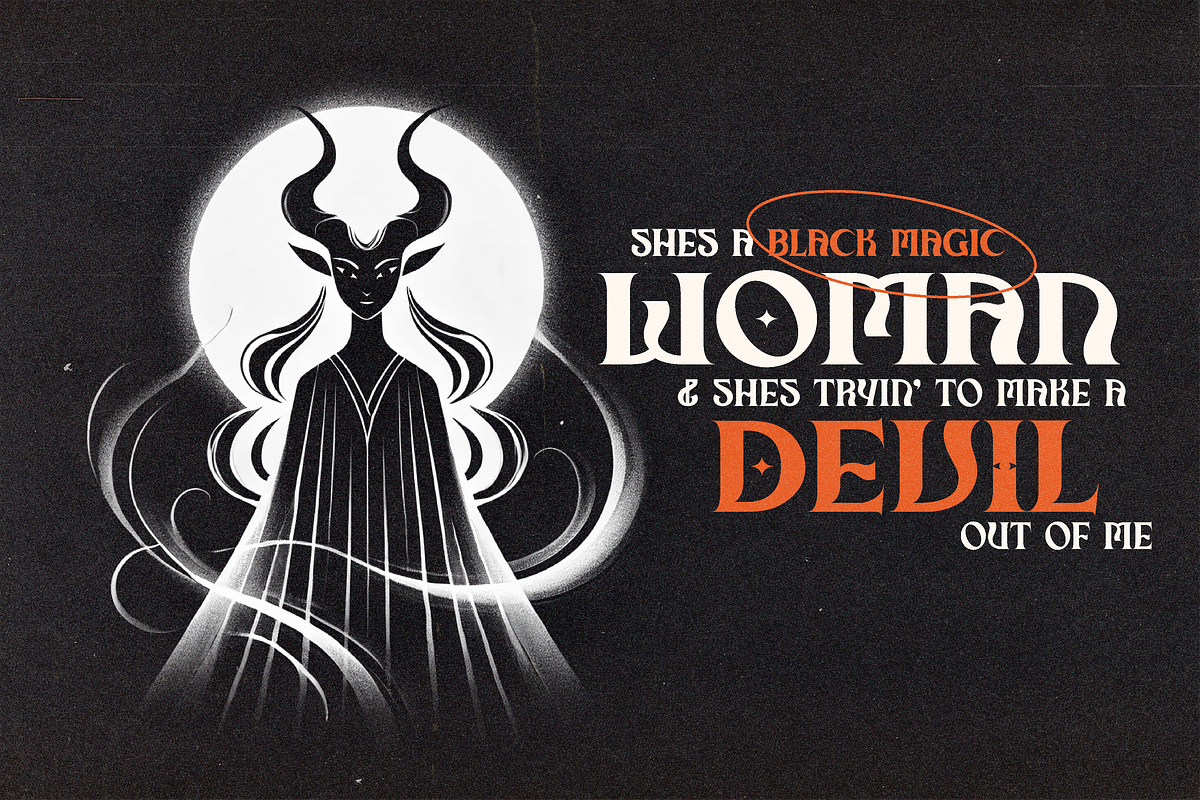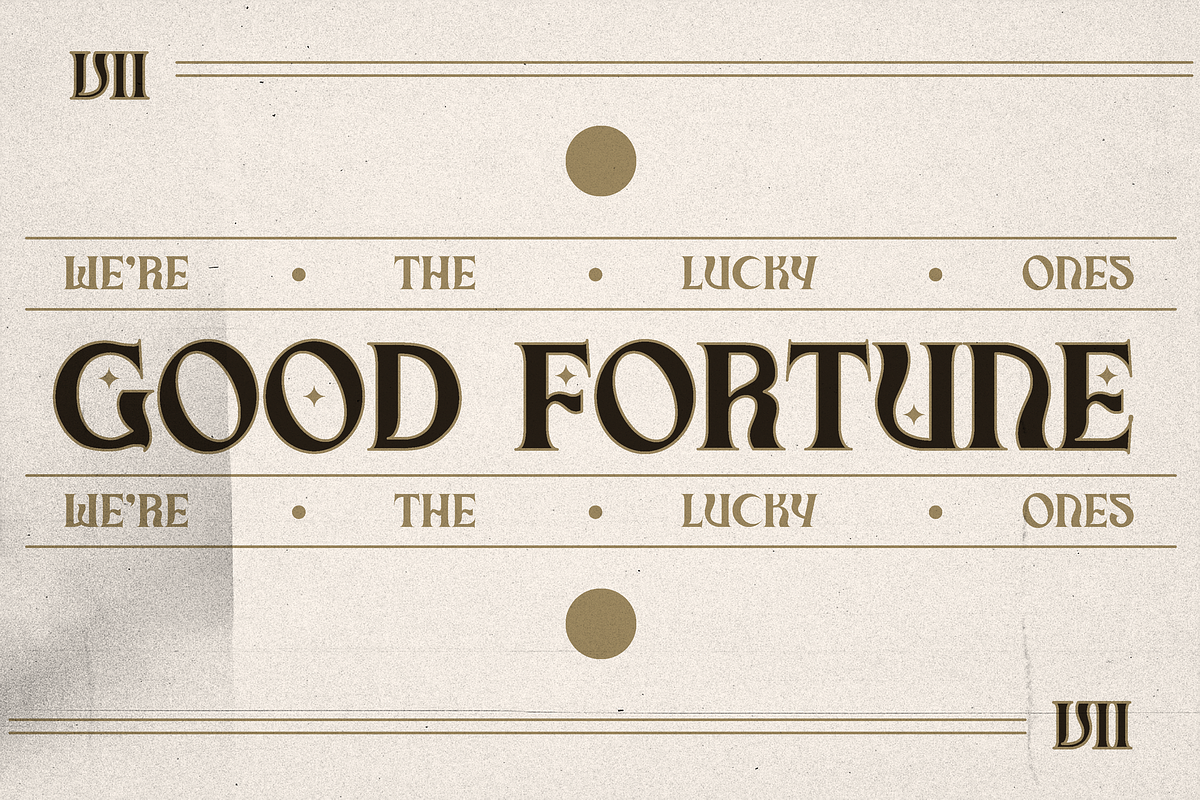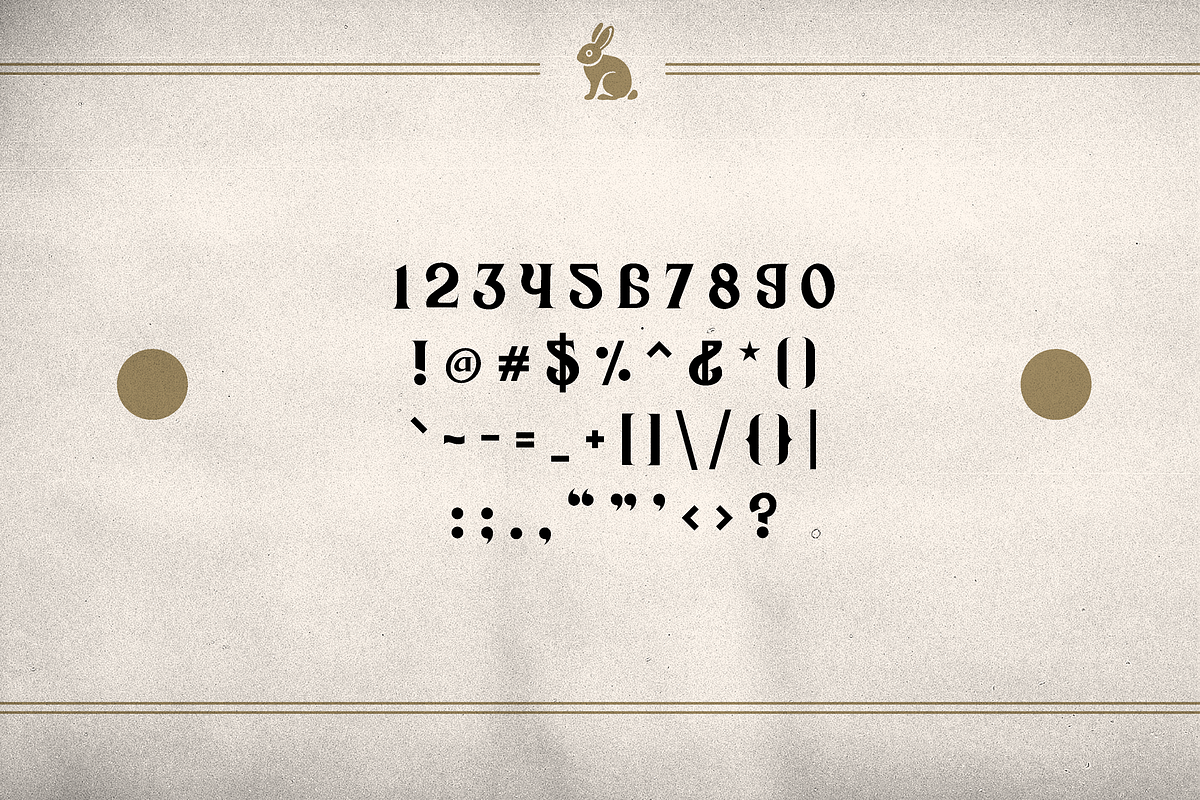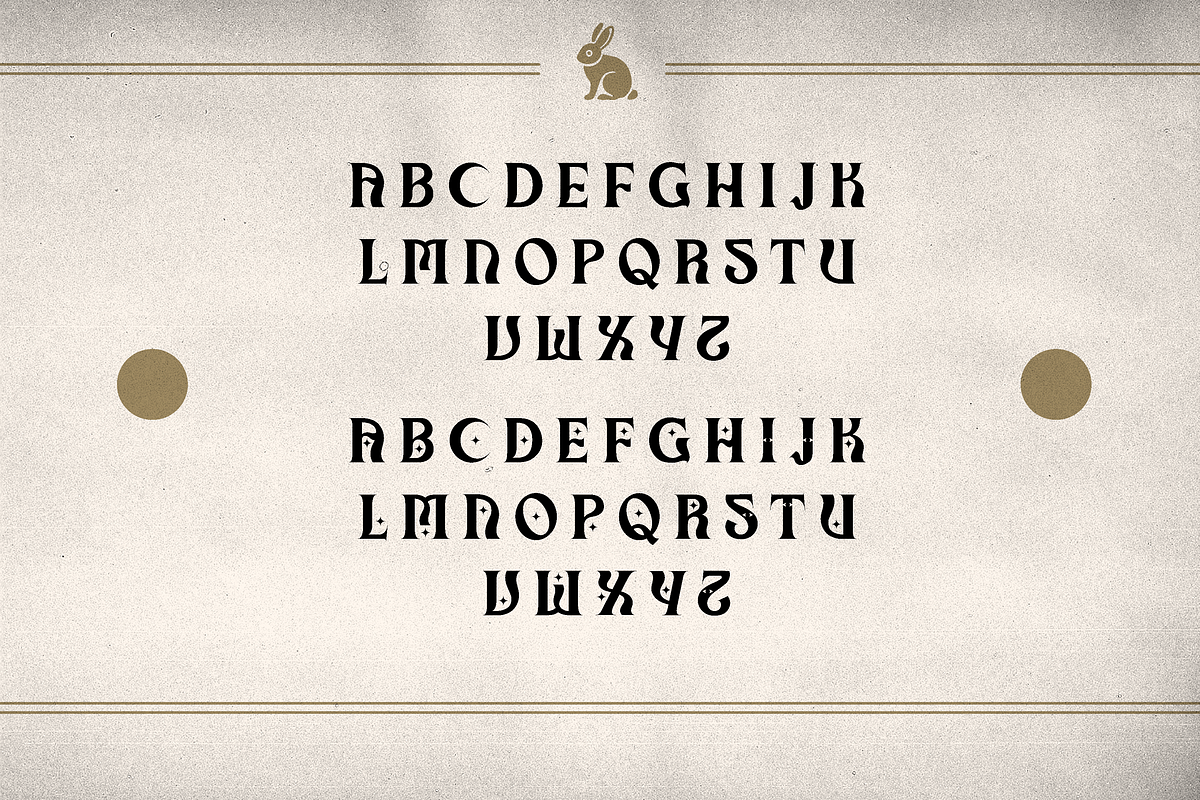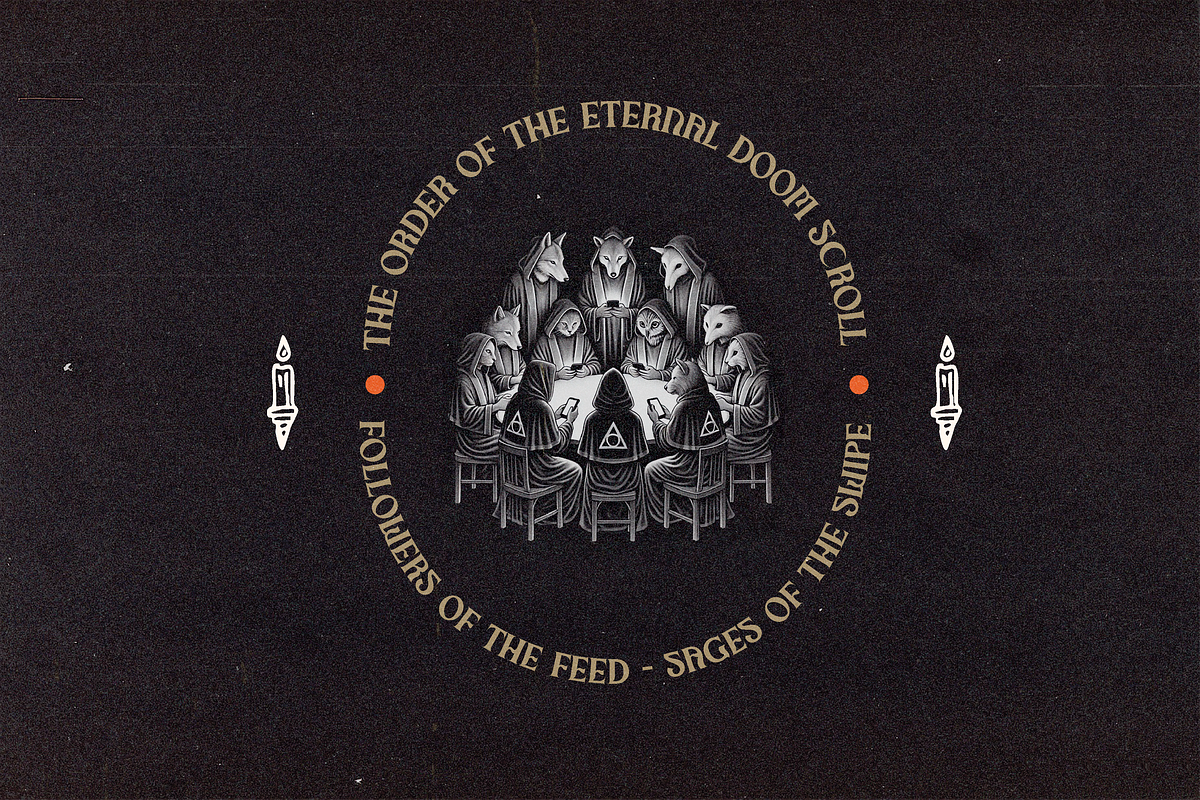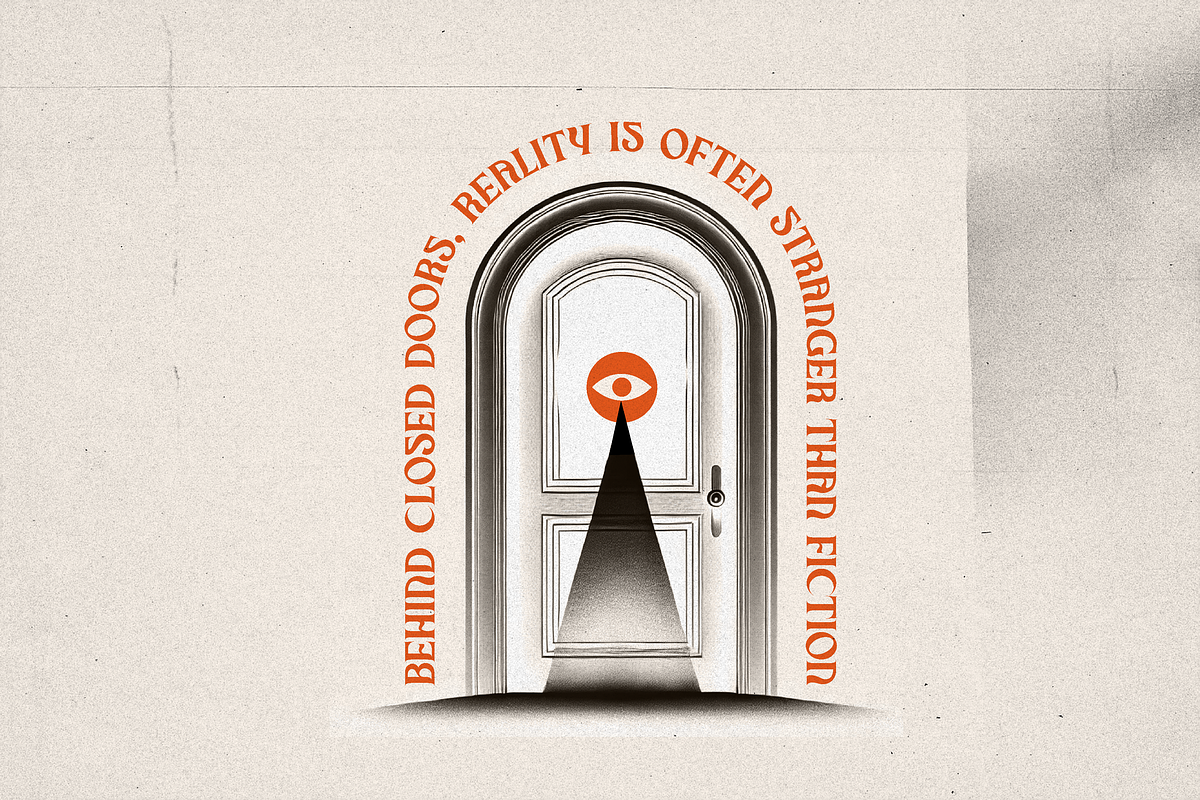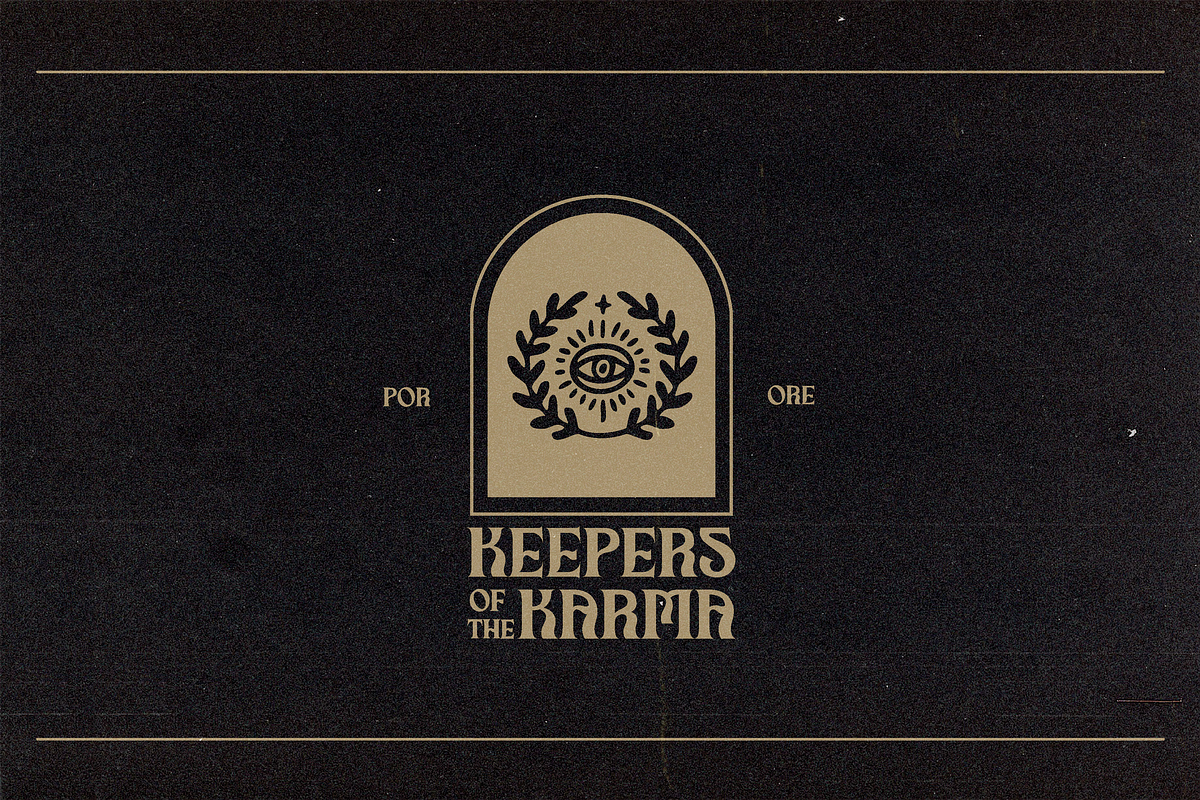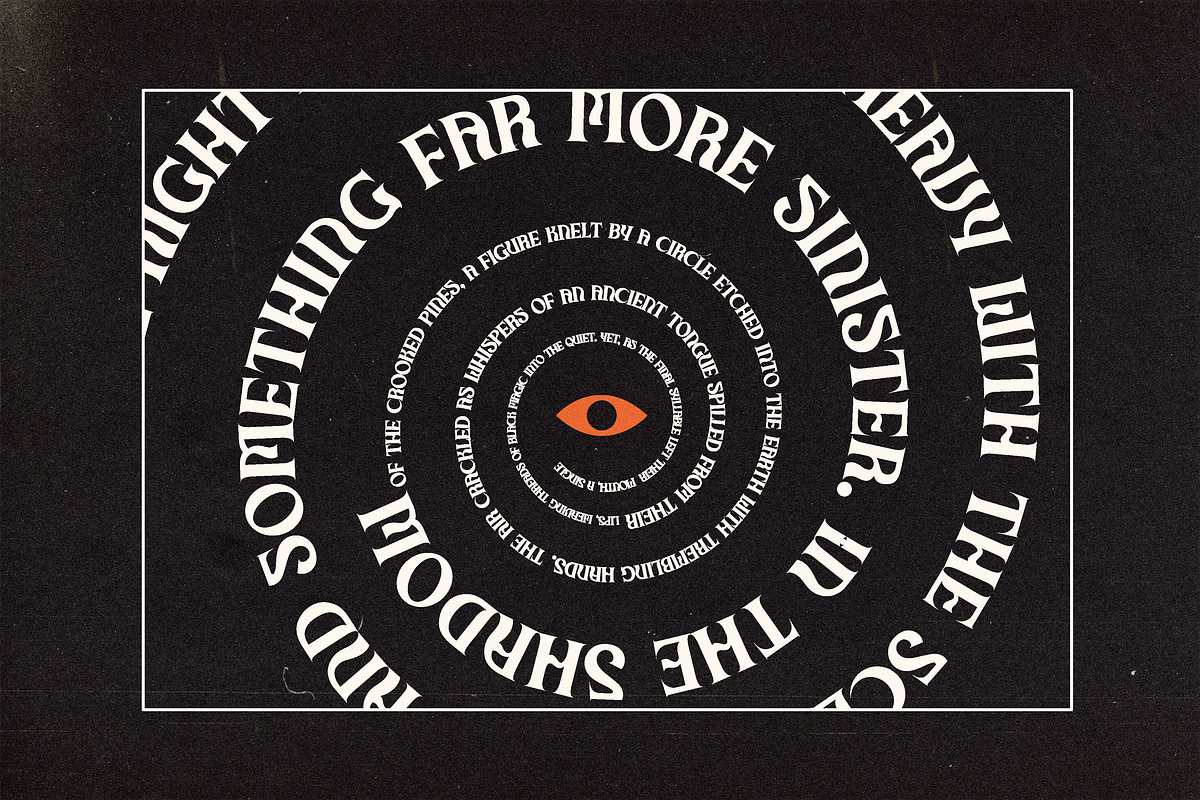
Black Magic - Occult Serif Typeface
Black Magic is a captivating sans-serif font infused with the mystique of occult witchcraft and ancient secret societies. Its sharp, pointed edges and sleek design evoke an air of mystery and exclusivity, making it the perfect choice for projects that demand a touch of enigmatic allure. Whether you're crafting a cryptic logo, designing spellbinding book covers, or creating intriguing branding elements, Black Magic delivers a sense of dark magic and secrecy that will leave your audience enchanted.